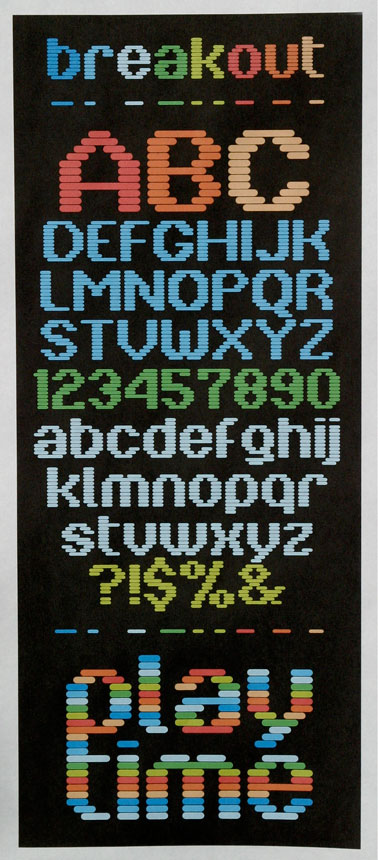
• This Fontstruction was produced after plugging in the Atari 2600 the other night and falling in love all over again with the minimalist simplicity of the game Breakout.
Let me be the first to congratulate you! Long live Fontstruct. The sampler is gorgeous.
What a sampler!
It looks exactly like a scanning of an Atari game package from the 80s!